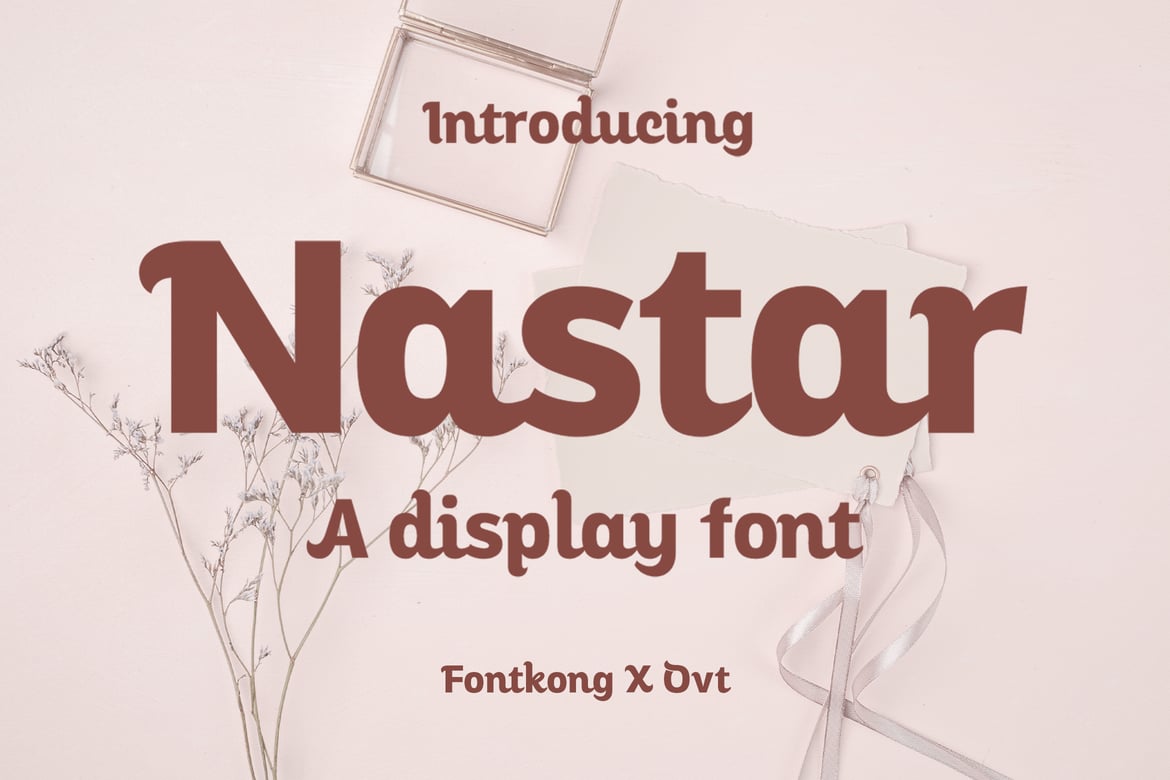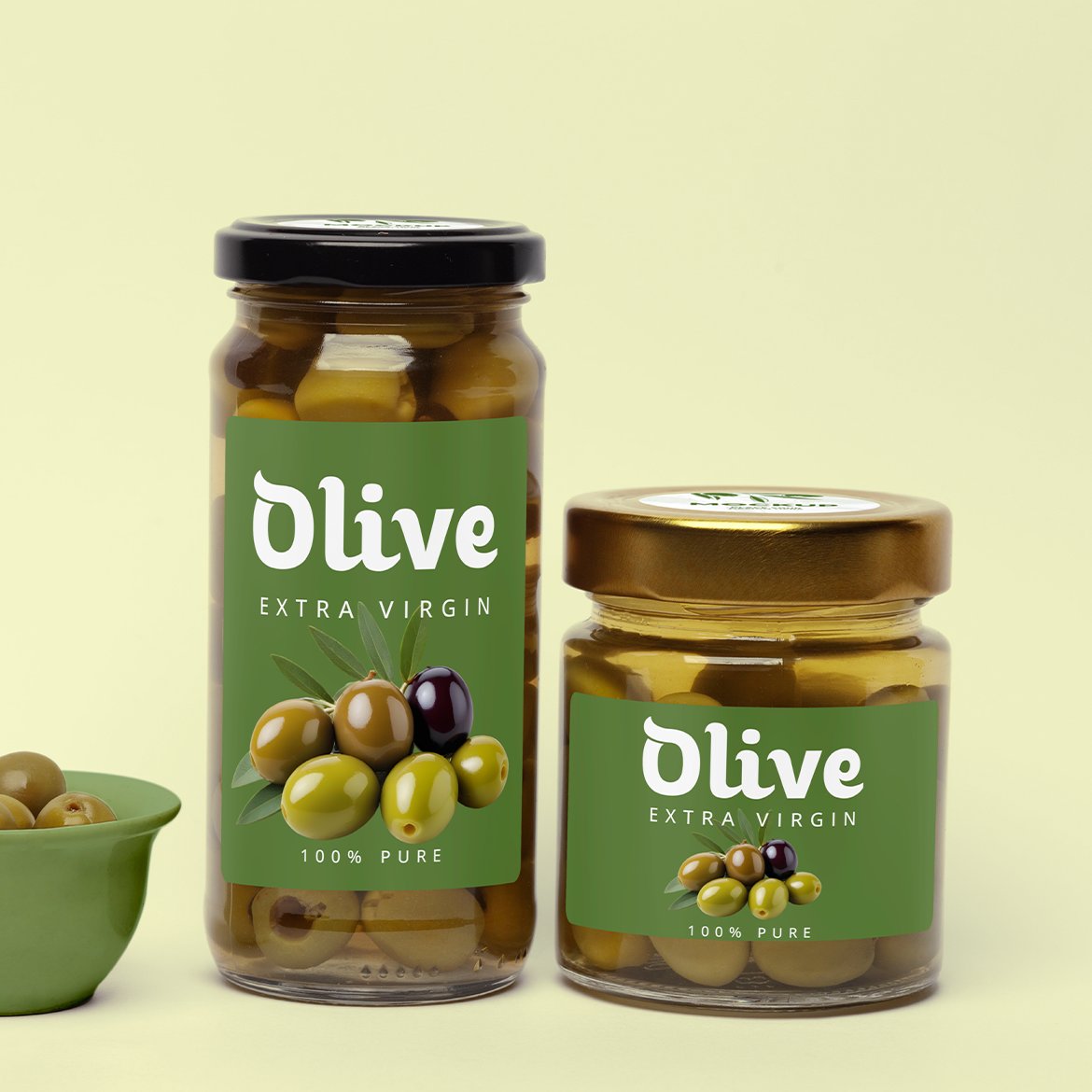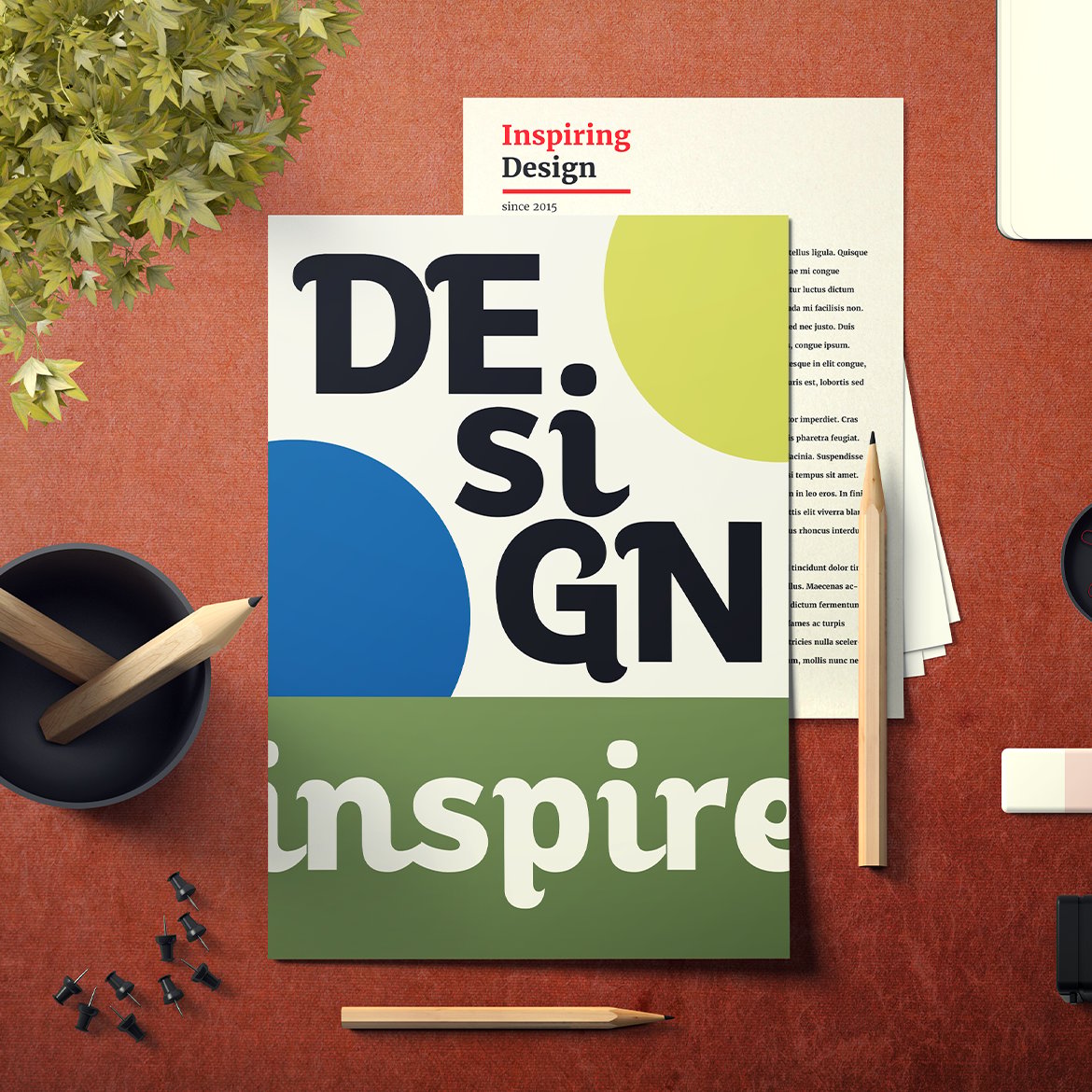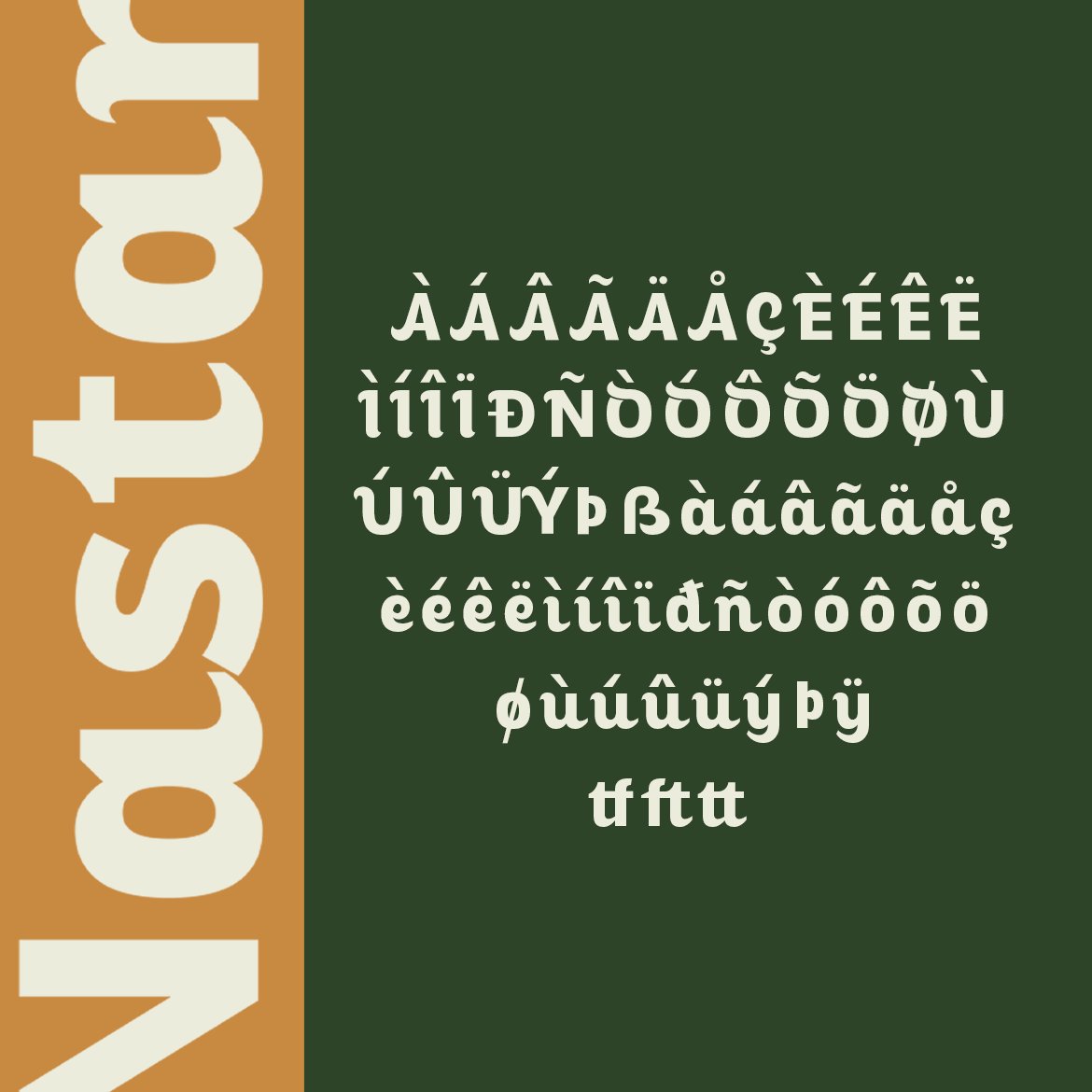
Nastar – A Playful Display Font
Nastar is a lively and bold display font designed to make your projects pop with personality. With its playful and eye-catching letterforms, this font is perfect for branding, posters, packaging, merchandise, and social media graphics. Whether you’re creating vibrant marketing campaigns or quirky event invitations, Nastar adds a fun and energetic touch to your designs.